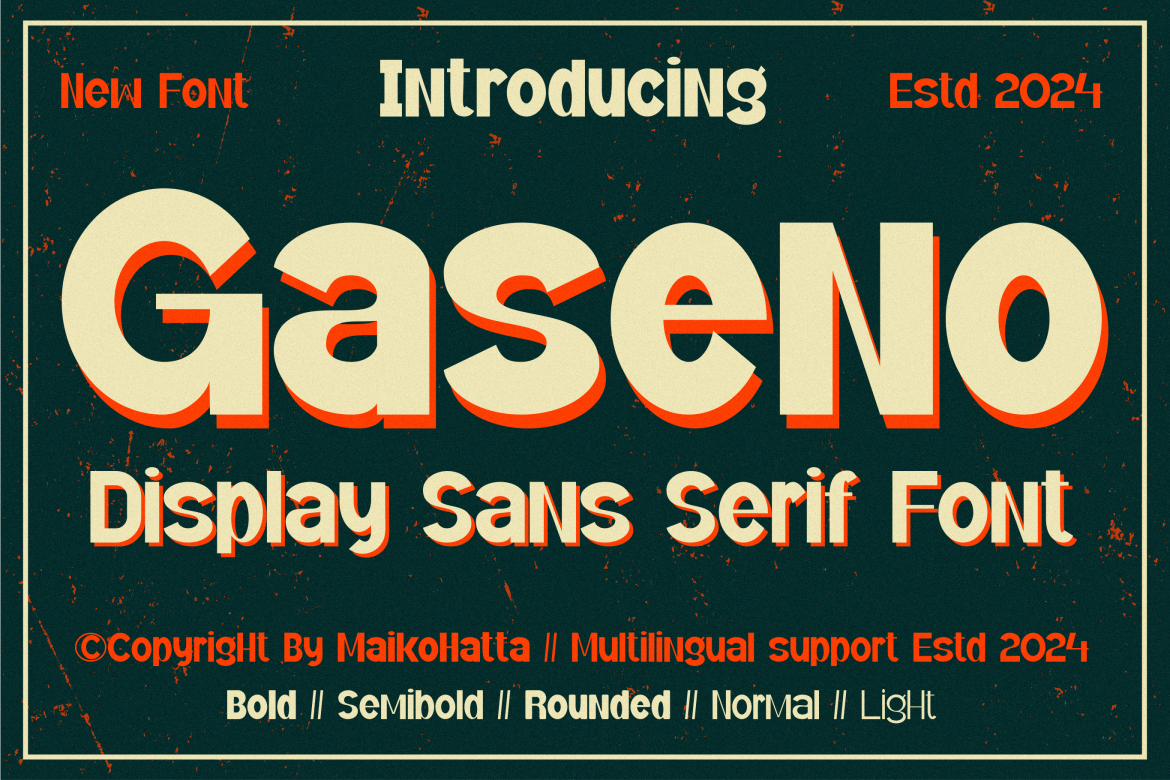
Gaseno - Display Sans Serif Font
Introducing our new product Gaseno Display Sans Serif Font
A sans-serif font family available in various styles is a highly versatile choice for graphic design and clean, modern text displays. This sans-serif font family offers flexibility in graphic design, and its various styles allow you to customize the appearance of text to suit your project's needs. With various combinations, you can create attractive and easy-to-read text displays in various contexts.
Style Font
- Rounded
- Bold
- Semibold
- Normal
- Light